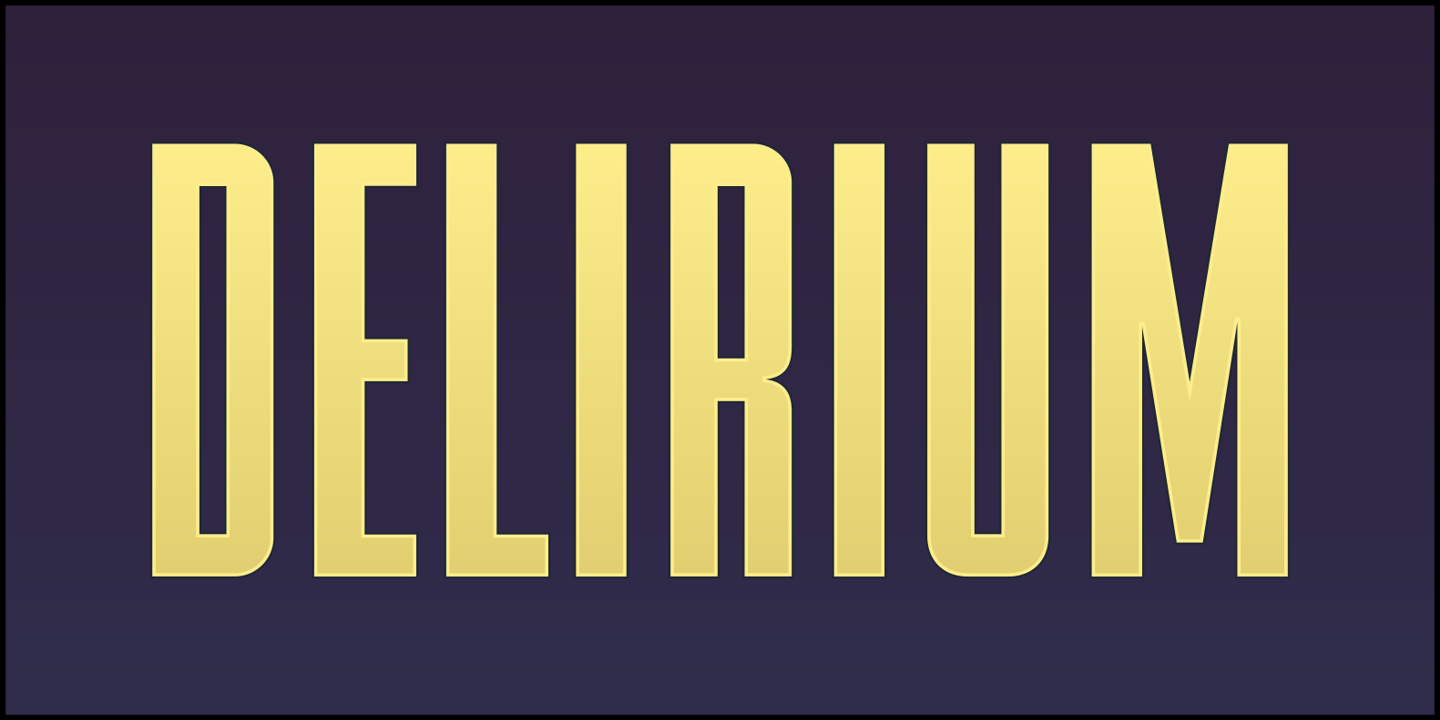
FTY DELIRIUM Font Free Download is a bold and energetic display typeface that captures attention with its strong, dynamic letterforms and edgy style. Perfect for sports branding, posters, merchandise, gaming graphics, and event promotions, this font delivers a powerful and rebellious visual punch.
The font’s thick strokes and aggressive design ensure excellent readability at large sizes, making it ideal for impactful headlines and bold graphic applications. FTY DELIRIUM brings intensity, movement, and an urban edge, making it a standout choice for projects that demand a fearless and commanding presence.
FTY DELIRIUM is a dynamic addition to any designer’s collection, perfect for projects that need energy, strength, and an unapologetically bold look.